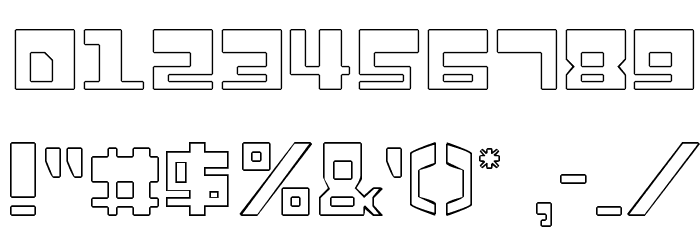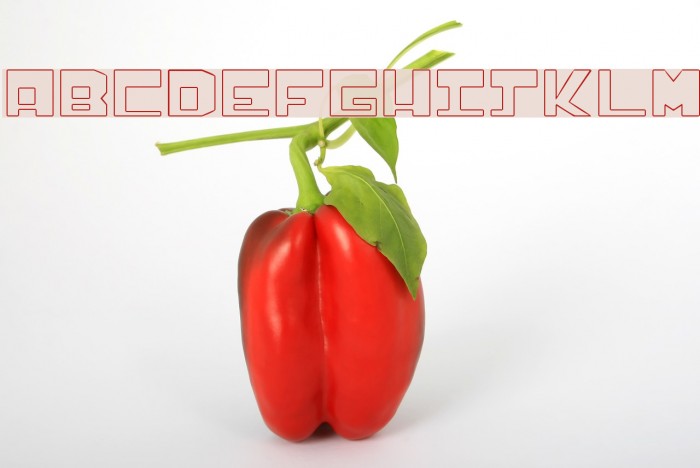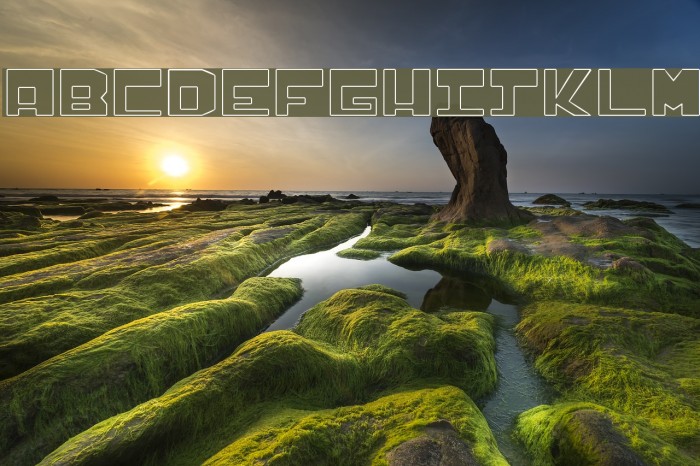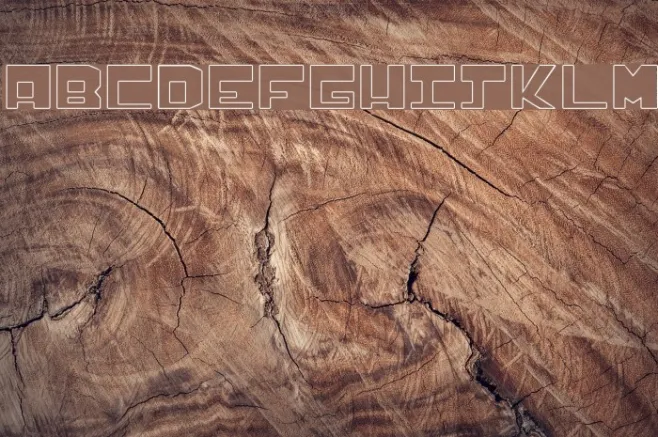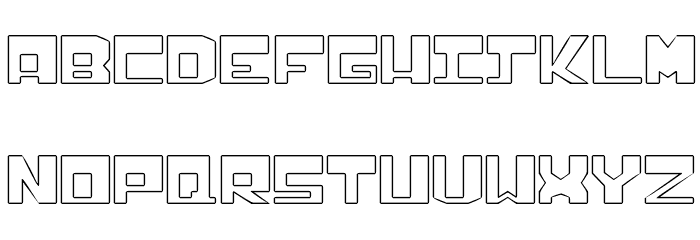
Infection Font
This font features a bold, geometric design with a distinct outline style. The characters are constructed with straight lines and sharp angles, giving it a futuristic and digital appearance. The uppercase and lowercase letters maintain a consistent height, contributing to a uniform look. The numbers and special characters follow the same design principles, ensuring cohesion across all elements. The font's structure is open and airy, with a moderate character spacing that enhances readability despite its decorative nature. Its unique style makes it ideal for projects that require a modern and edgy aesthetic.
A bold, geometric outline font with a futuristic and digital style.
• Proposed Projects: Ideal for technology-themed designs, video game graphics, sci-fi posters, and modern branding.